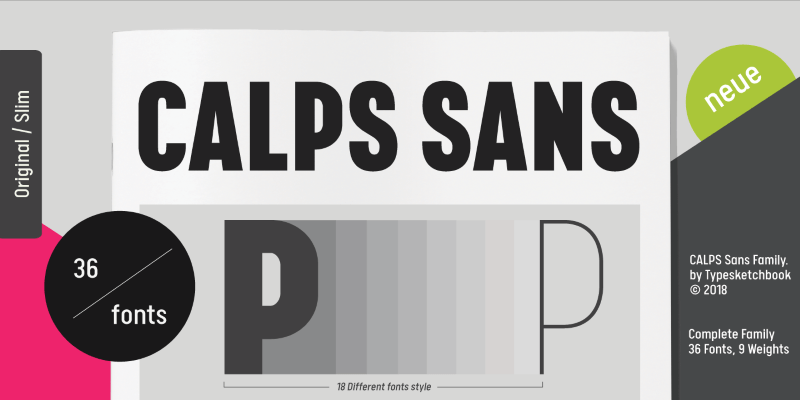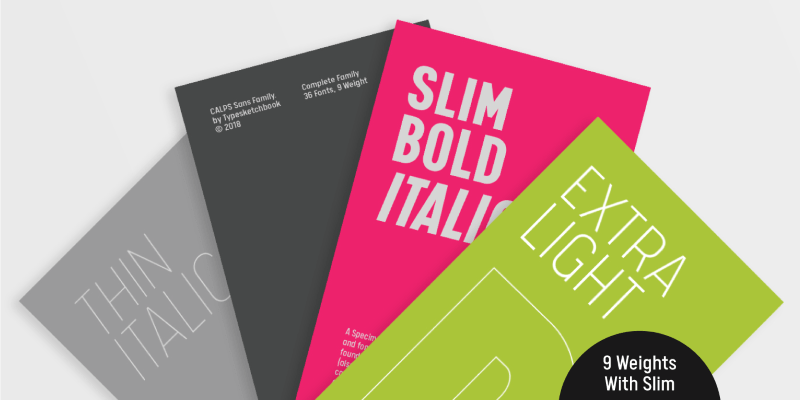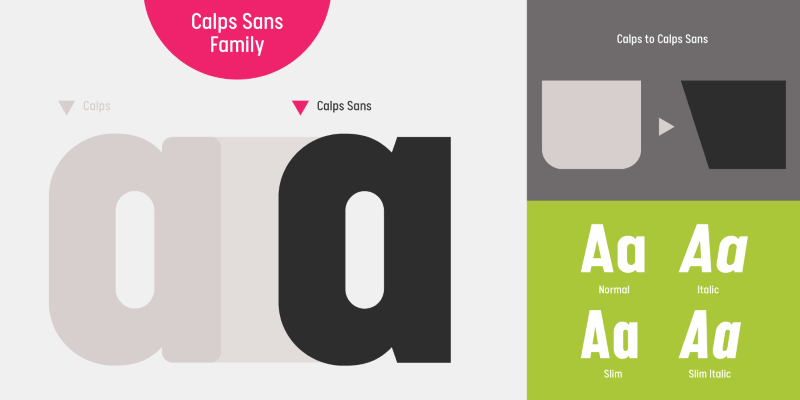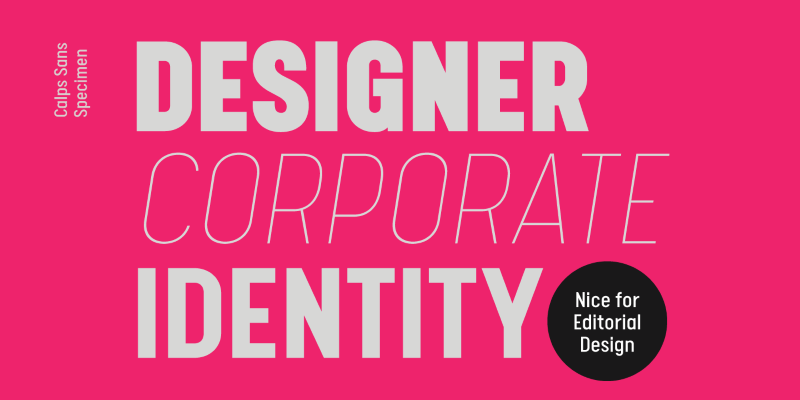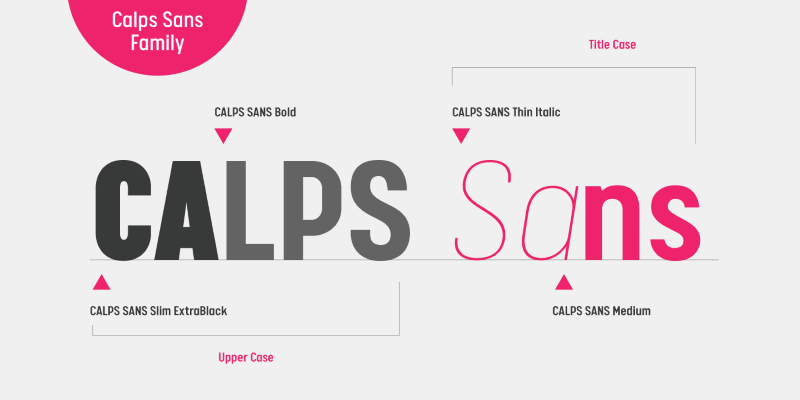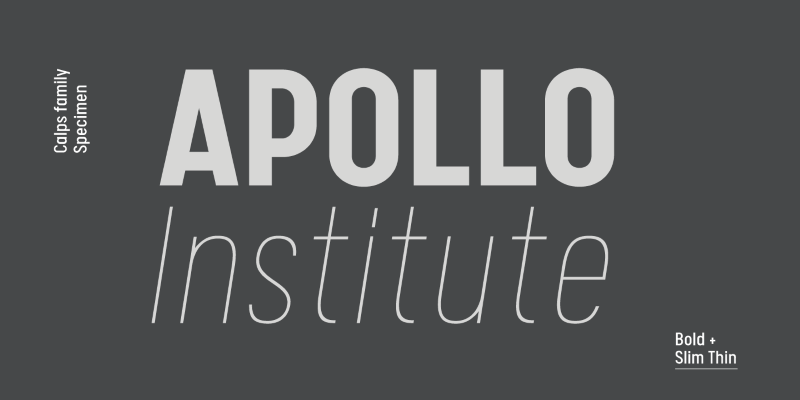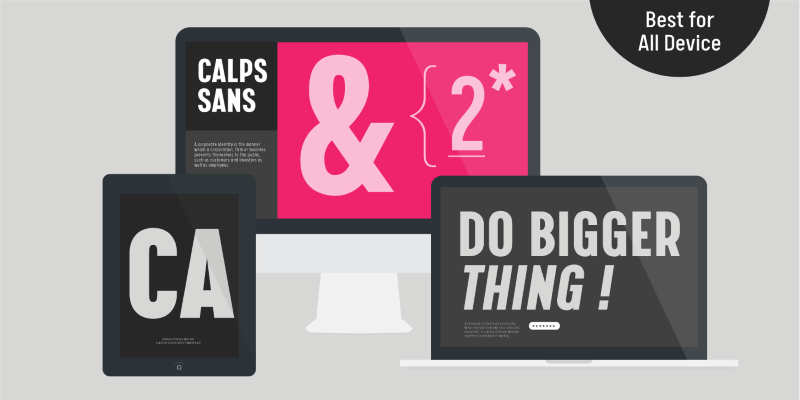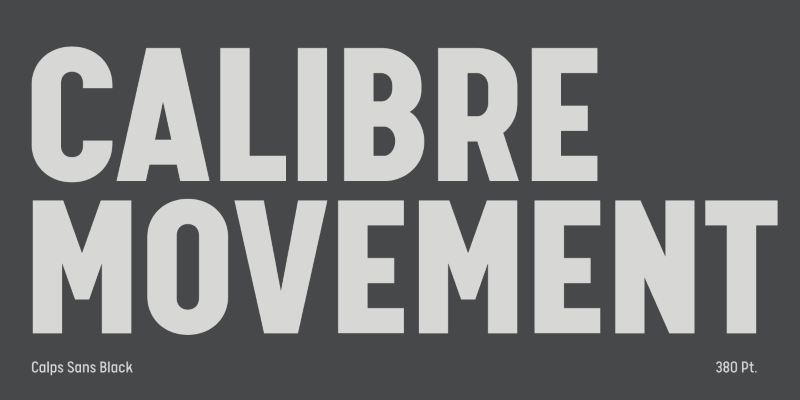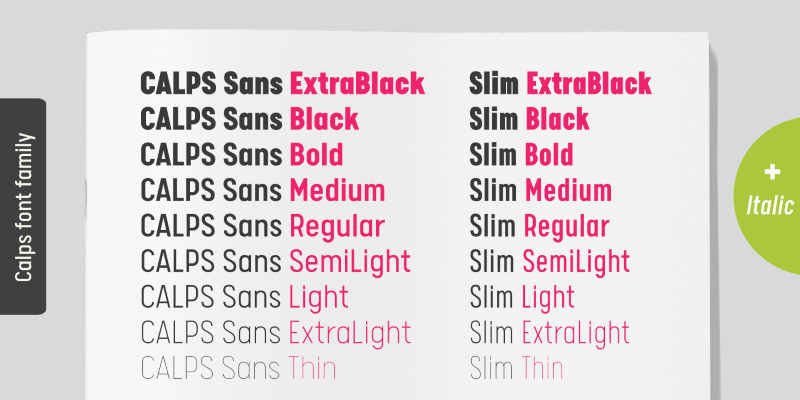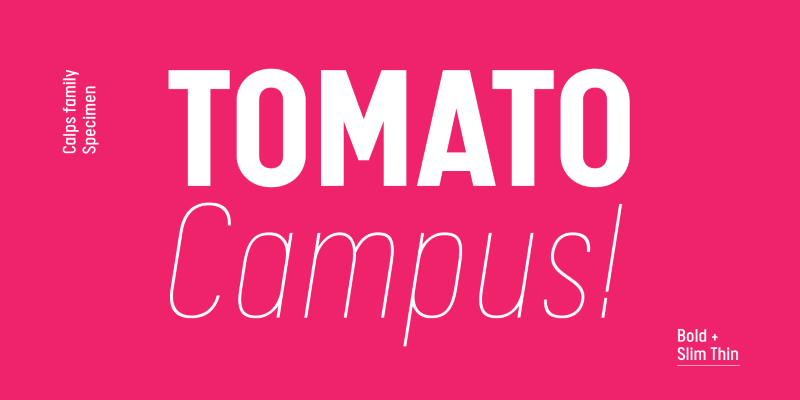
Calps-Sans Font Family Package – 36 Professional Sans Serif Fonts in 9 Weights
This font family features 36 professionaly designed sans-serif fonts which includes 9 weights ranging from thin to extra black with normal and slim options for each weight as well as matching true italics for each font, making it a versatile choice of typography for digital & print use on body copy as well as a stylish choice for display purposes
- Condensed sans serif font family
- Includes 36 font variations
- 9 different weights - From ExtraBlack to Thin
- Normal & Slim options for each weight
- Matching true italics